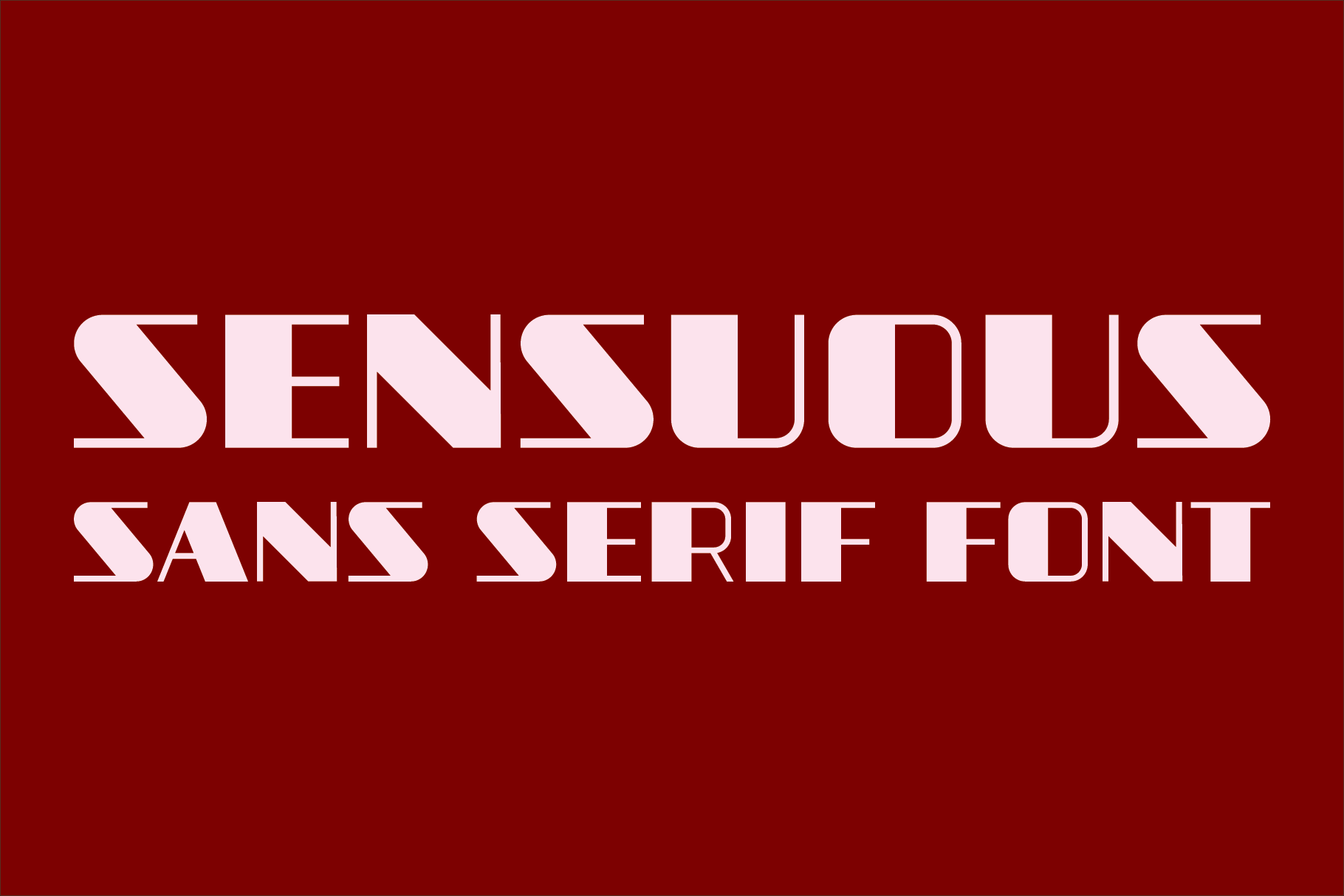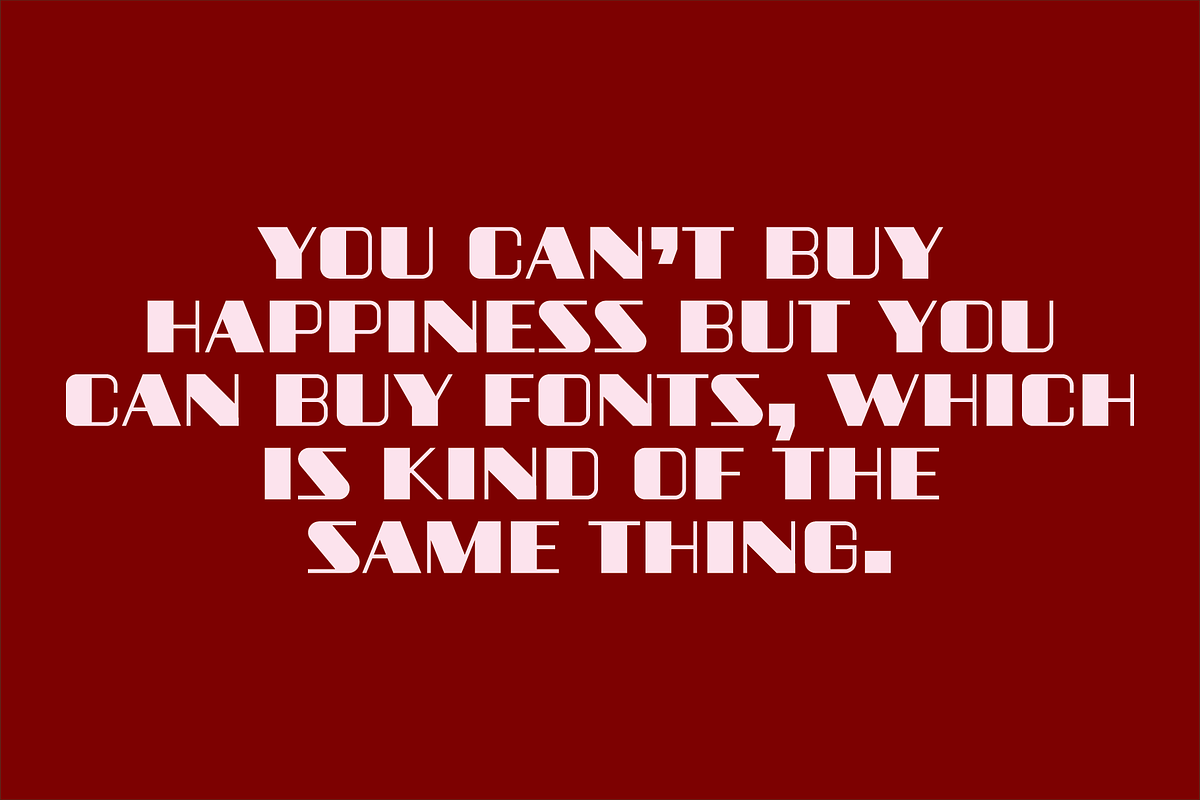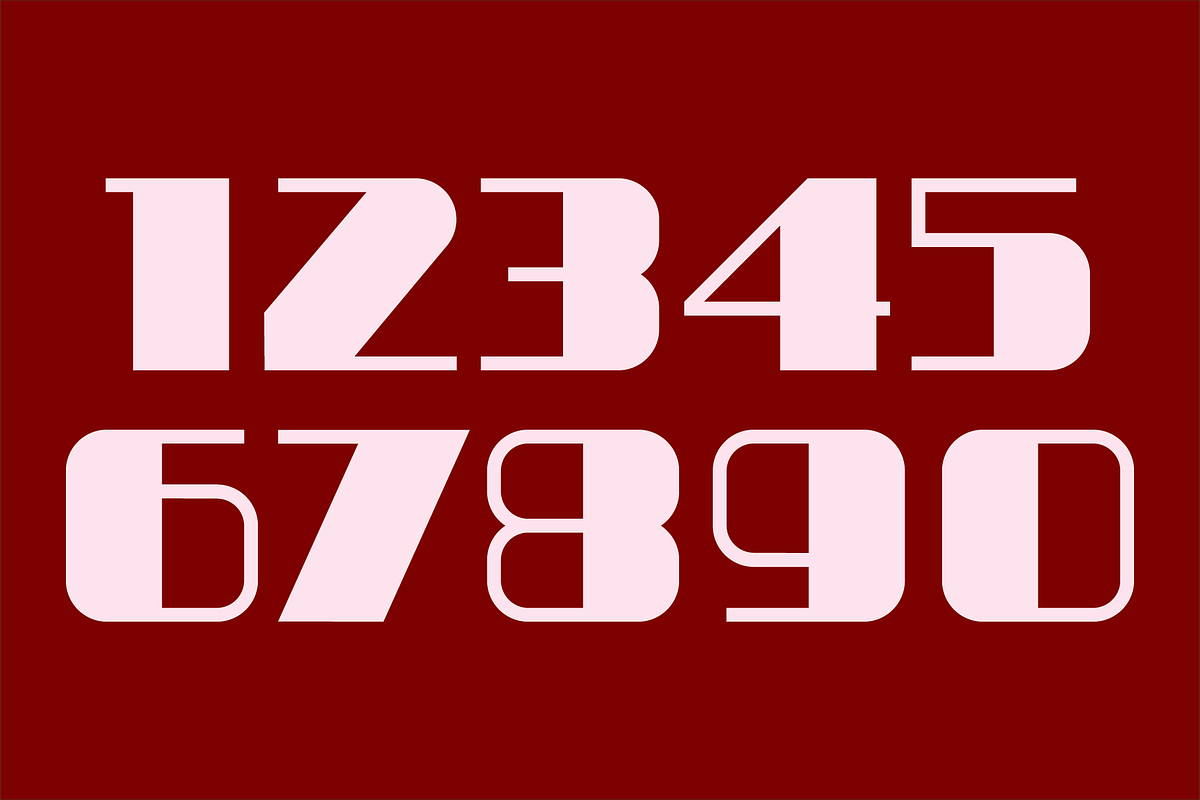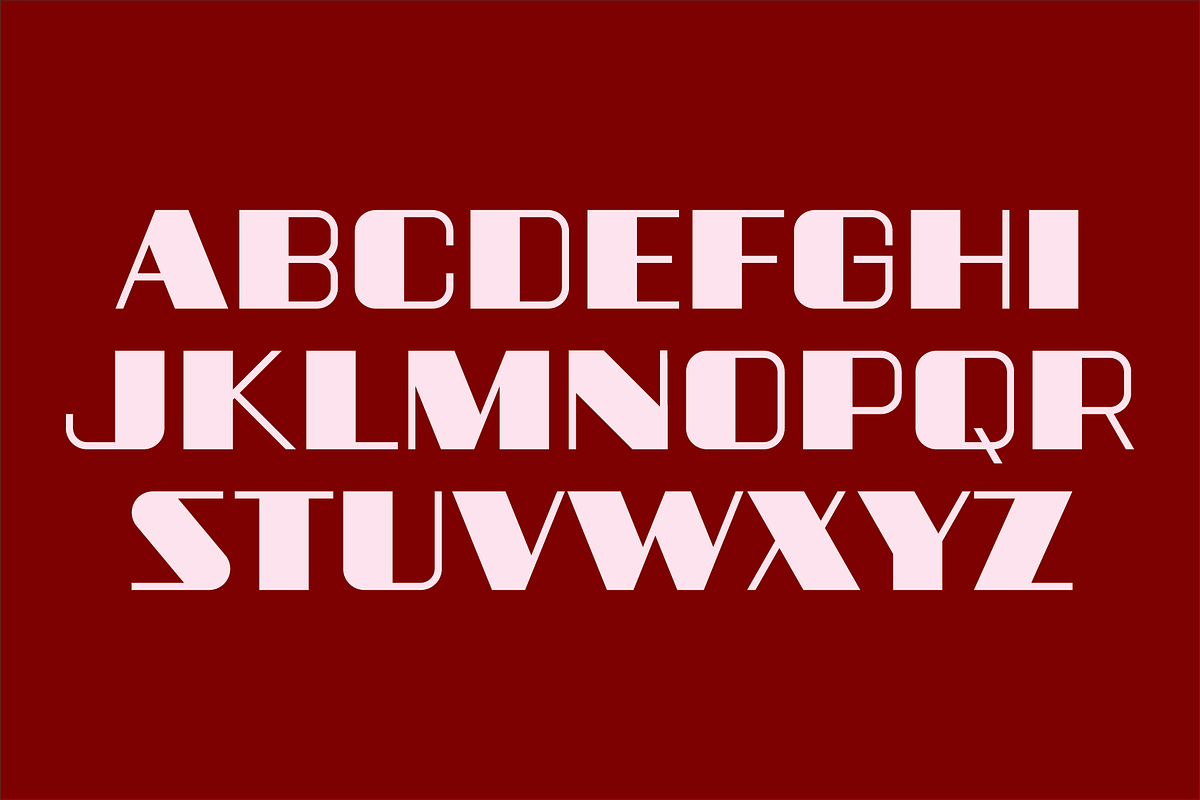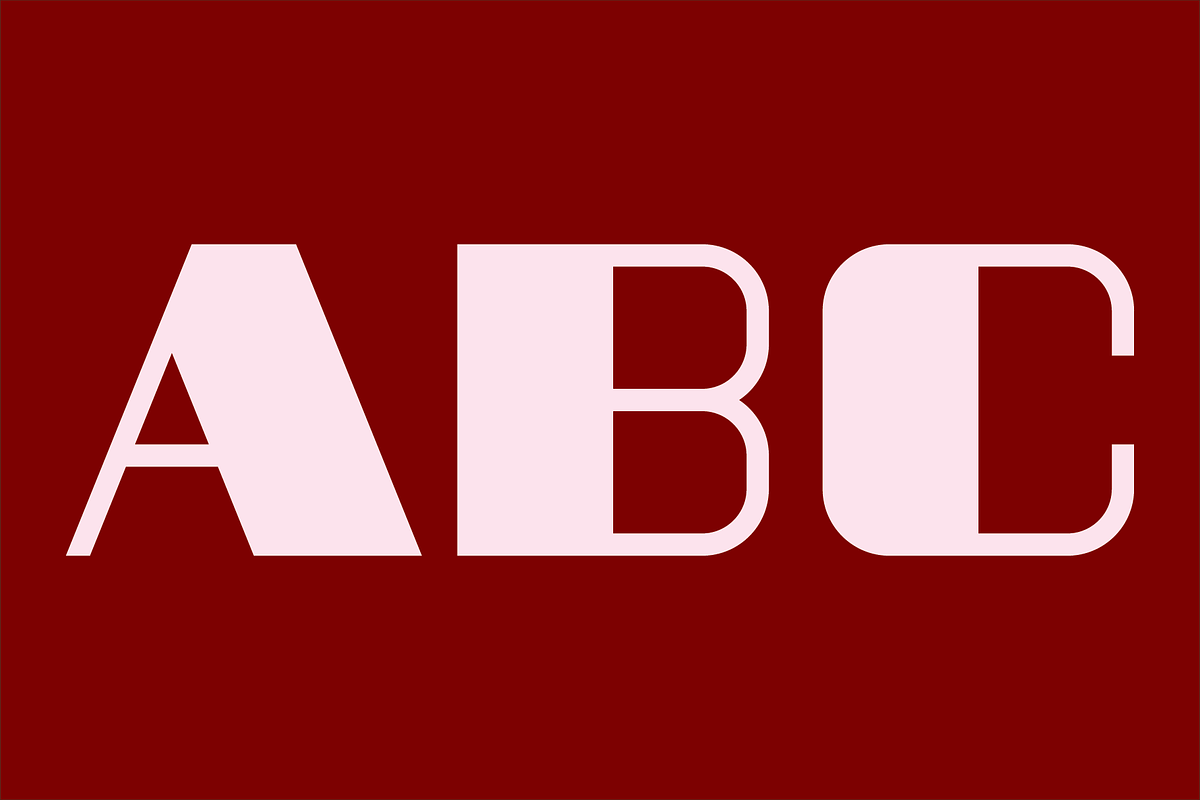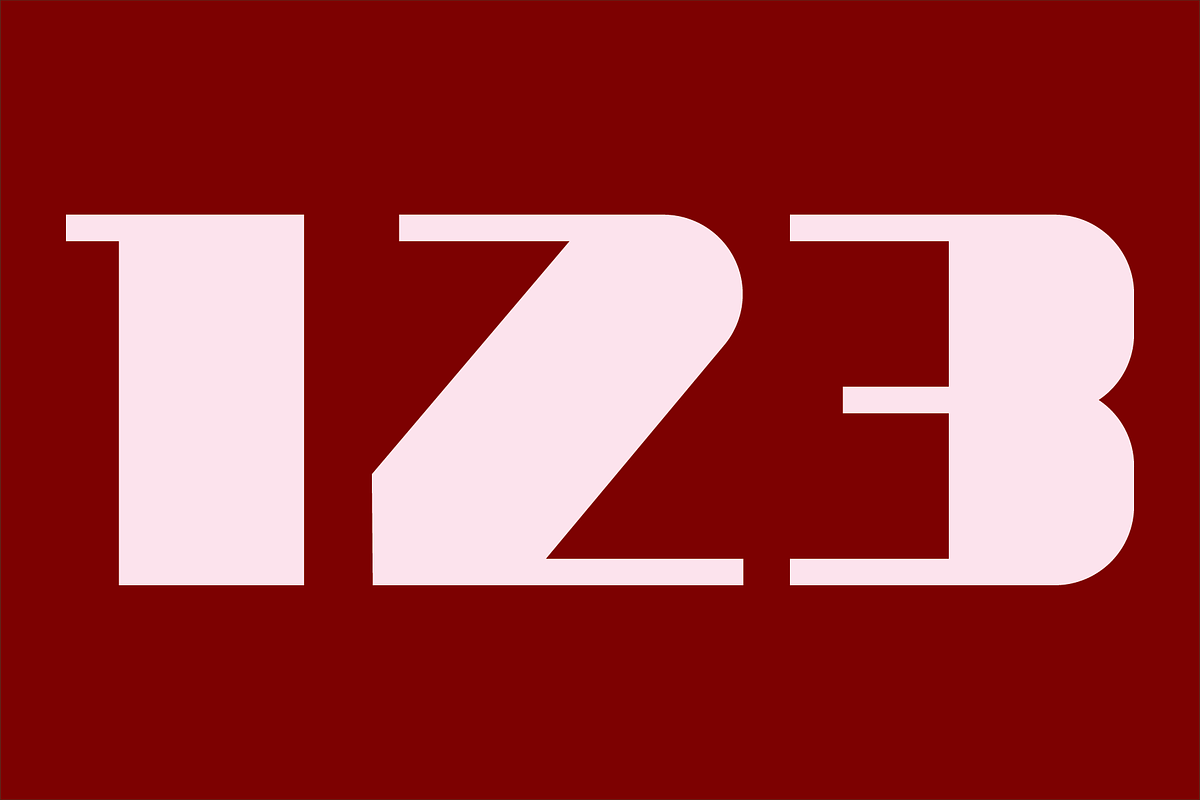
Sensuous - Sans Serif Font
Sensuous is a bold sans serif font with characters that have a very high contrast between thick and thin elements. It is ideal for headlines, titles, branding and small blocks of text.